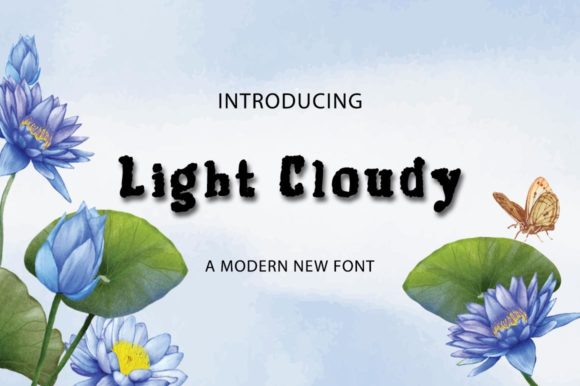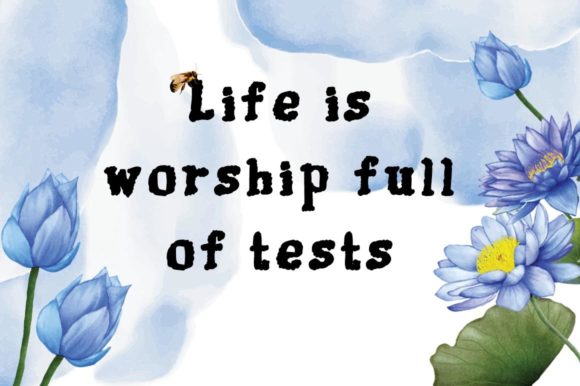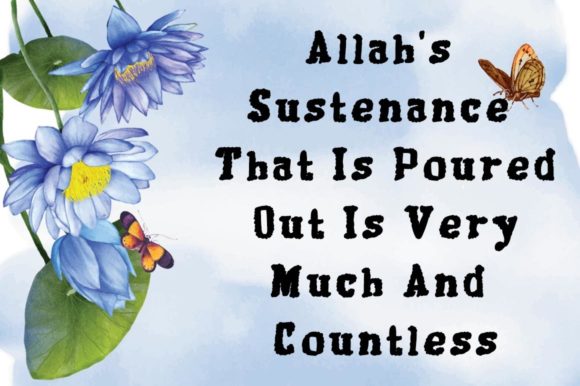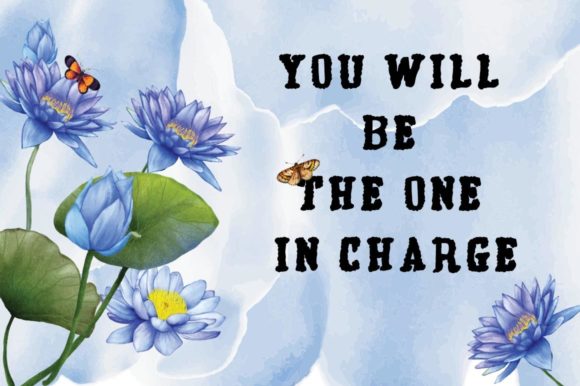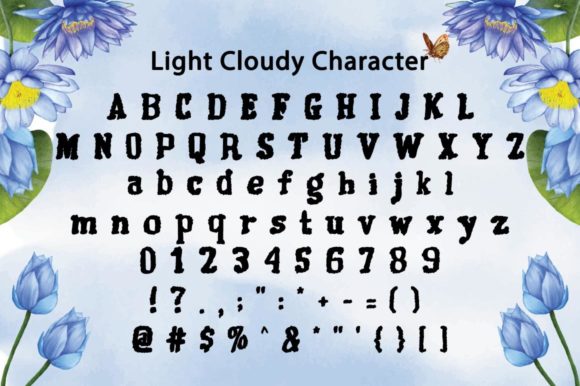
Light Cloudy Font
About Light Cloudy Font
Light Cloudy is a delightful and casual serif font designed to make a charming impact in various contexts. Whether you’re in search of fonts for Instagram posts or calligraphy scripts for DIY projects, Light Cloudy stands out as a creative and artistic choice that can transform your ideas into genuine works of art.
This font excels in diverse design applications. It serves as a great option for logos, infusing a cute and approachable vibe into brand identities. Light Cloudy’s casual and charming nature makes it well-suited for businesses or projects aiming to convey a friendly and inviting image.
In headings, Light Cloudy brings a touch of creativity and uniqueness. The font’s delightful serif style contributes to crafting visually engaging and memorable headlines, making it a valuable asset for various print and digital designs.
For t-shirts and letterhead, Light Cloudy’s casual yet stylish appearance makes it a versatile choice. It adds a hint of character to apparel designs and injects a touch of personality into professional correspondence, striking a balance between creativity and professionalism.
In signage, labels, news, posters, badges, and more, Light Cloudy continues to shine. Its readability, coupled with its cute and casual aesthetic, ensures effective communication of your message while adding a visual flair to the overall design.
Whether you’re working on social media graphics or print materials, Light Cloudy proves to be an adaptable and visually pleasing font. Its ability to infuse a sense of charm and creativity into different contexts makes it a versatile tool for designers seeking a font that can elevate their creative projects.
In essence, Light Cloudy is more than just a font; it’s a creative companion that can transform ordinary designs into pieces of art. With its cute and casual serif style, this font brings a delightful touch to logos, headings, t-shirts, letterhead, signage, labels, news, posters, badges, and more, making it a valuable asset for a wide range of design applications.